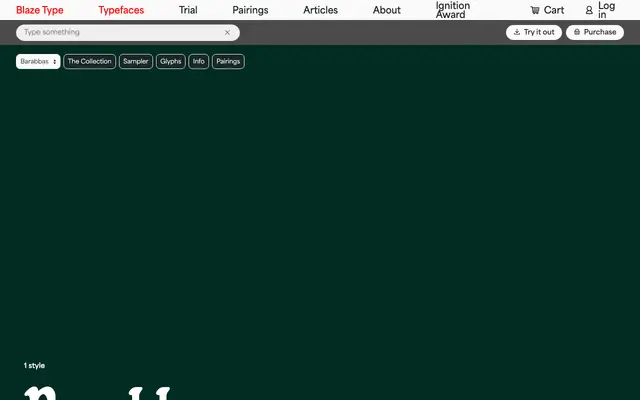
Barabbas
A single-style display face drawn from the hand-lettered title cards of Richard Fleischer's 1961 Italian-American epic film, updated for contemporary use.
Designed by Matthieu Salvaggio, this face takes its letterform logic directly from the hand-drawn titles of the 1961 Columbia Pictures epic, translating their calligraphic weight distribution and curve construction into a contemporary display typeface. Available in one style, it suits movie posters, book covers and large-scale headlines where a mid-century cinematic register is wanted. Language support covers Latin European languages, exported in TTF, WOFF and WOFF2.
A single-weight display face with hand-lettered character referencing mid-century film title design; its expressive, calligraphic stroke quality places it firmly in the display category rather than conventional text serif.